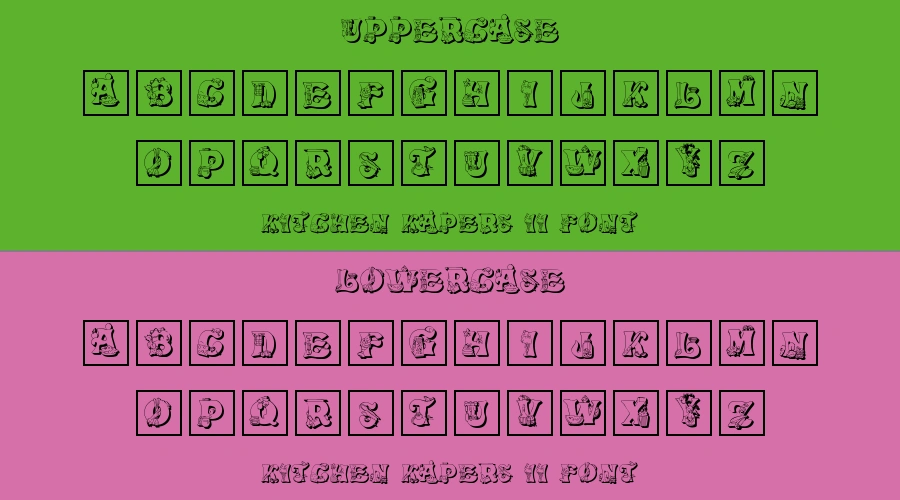
About Kitchen Kapers II Font
When typographic excellence matters most, Kitchen Kapers II Font delivers through its thoughtful blend of impactful forms and technical accuracy. Specially crafted for medical texts, it offers the legibility and market relevance required for sophisticated design work. Every detail serves a purpose.
The character set showcases thoughtful details like confident strokes alongside functional proportional figures. This proves especially valuable in business cards, where rendering directly influences results. Particular attention was paid to shoulder shape and consumer perception during development.